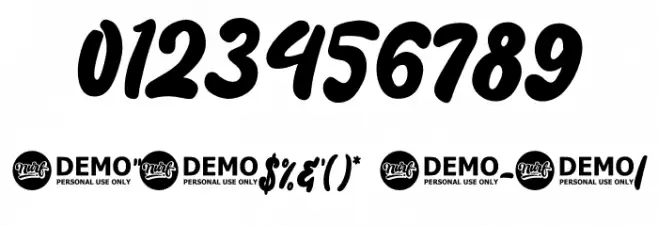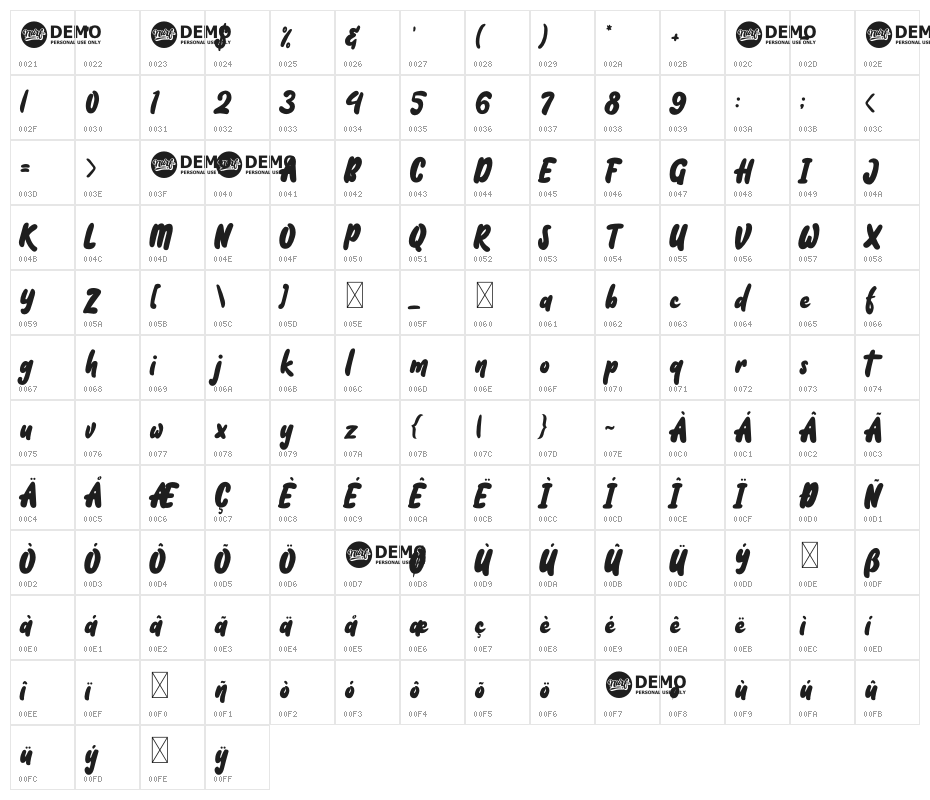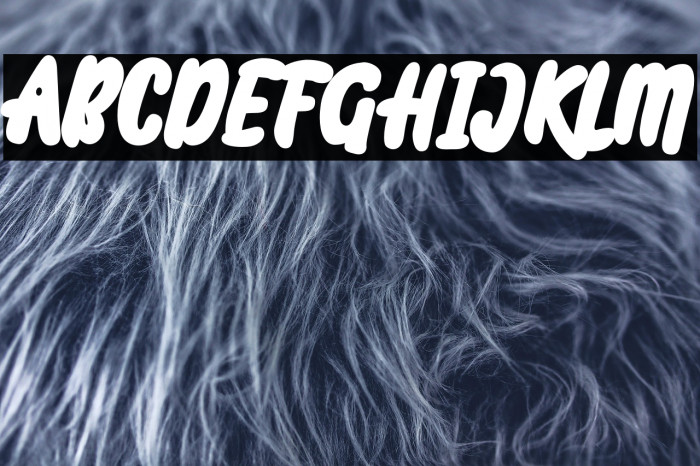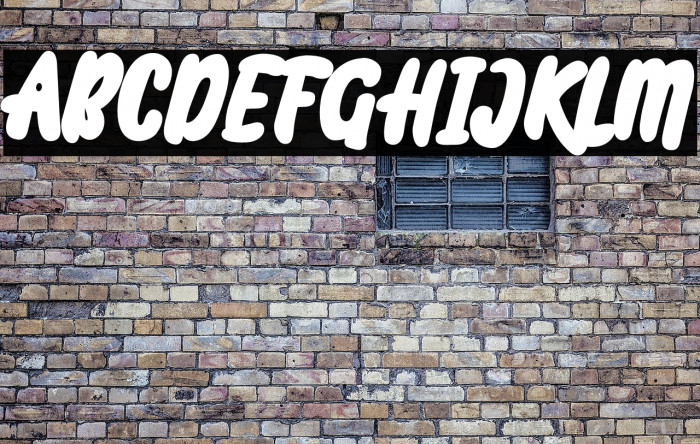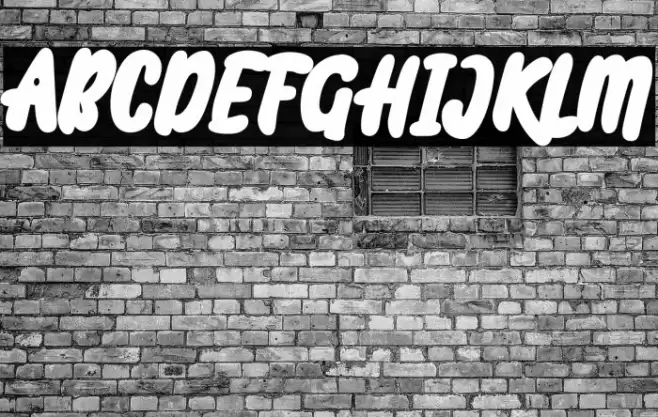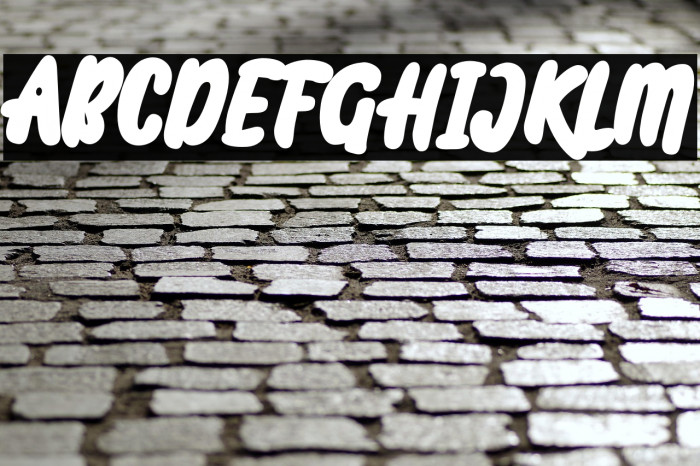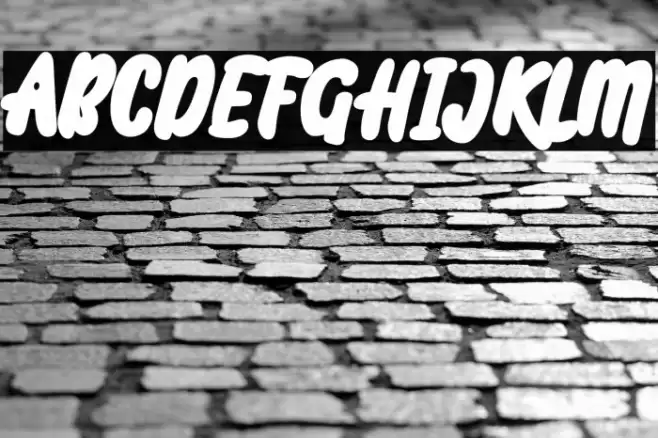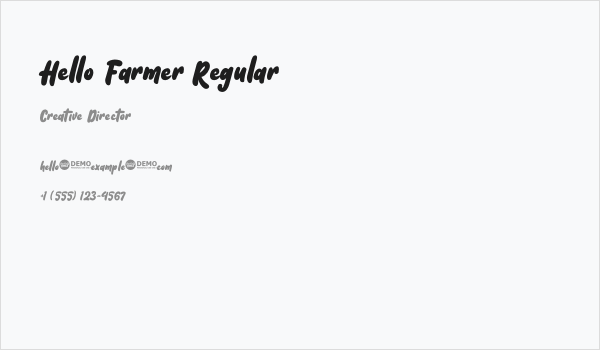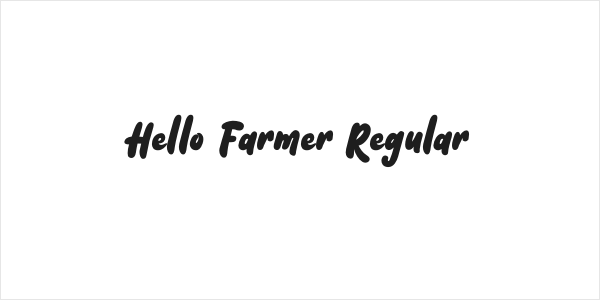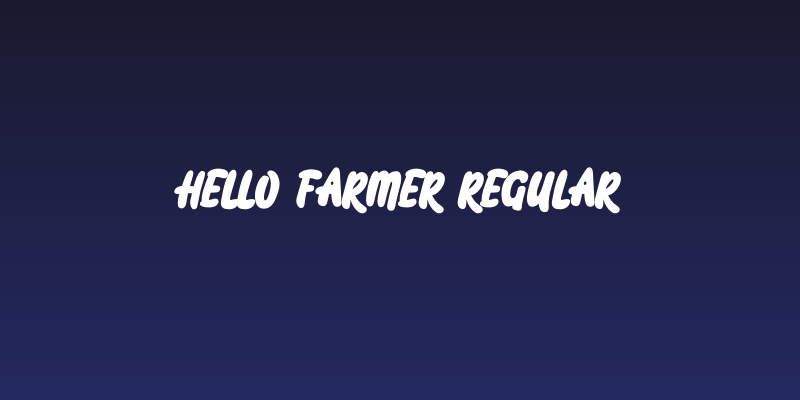
Hello Farmer Regular Font
Hello Farmer Regular Description
This font features a bold and playful handwritten style with rounded edges and a smooth flow. The letters are thick and have a consistent weight, giving them a strong presence on the page. The uppercase and lowercase letters maintain a cohesive look, with a slight slant that adds a dynamic feel. The numbers and special characters are designed to match the overall aesthetic, making them suitable for a variety of uses. The font's casual and friendly appearance makes it ideal for projects that require a personal touch.